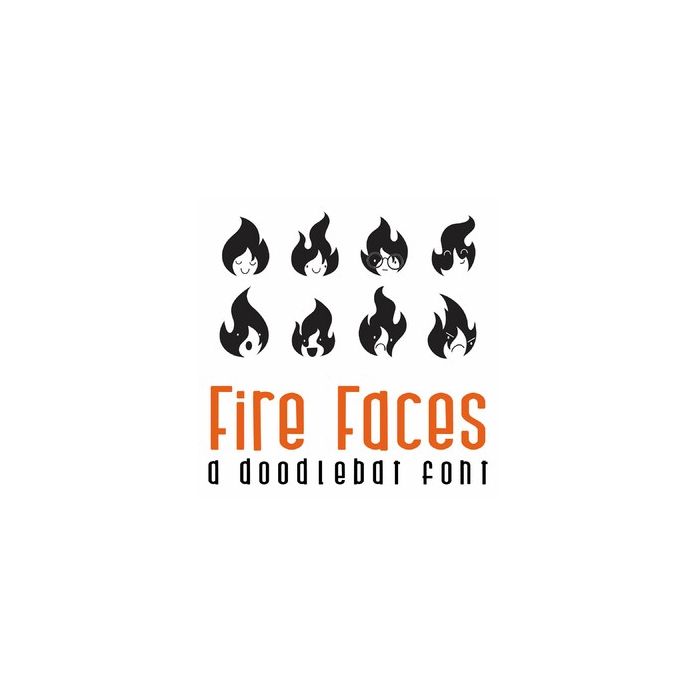
Fire Faces Doodlebat Font
This fun doodlebat font features 26 fun fire emojis. Perfect for cards, gifts, decor, crafts, scrap book pages, planner stickers and more!